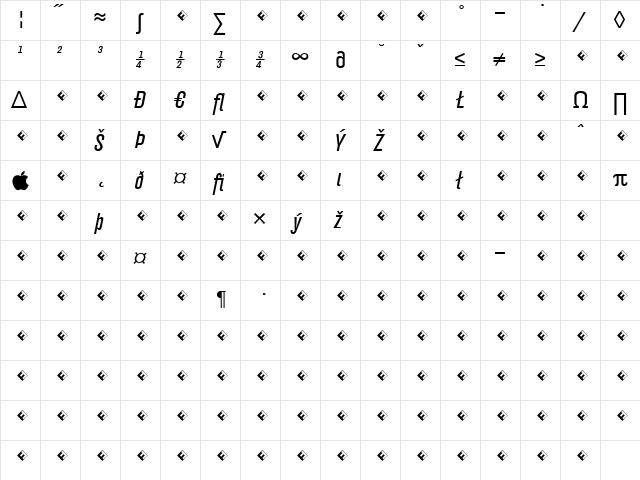
Hydra-BookItalicExpert Regular
| Designer | Silvio Napoleone |
Design Context for Hydra-BookItalicExpert Typeface
Hydra-BookItalicExpert takes a measured approach to typography — its balanced proportions and neutral character make it a reliable workhorse for both digital and print work. Its italic angle brings a sense of urgency and motion to the letterforms.
Pro Tip: Try Hydra-BookItalicExpert for annotation and caption copy alongside an upright companion — the contrast in angle creates a dynamic but ordered typographic system.